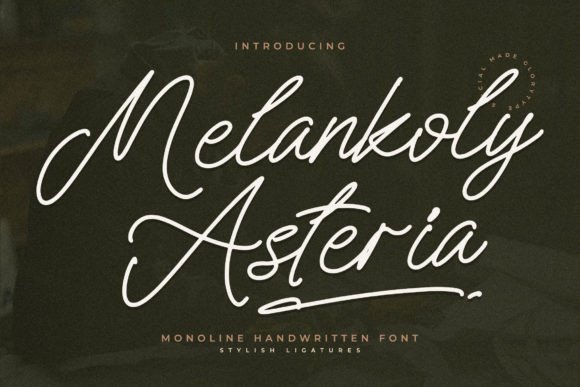
Unleash the sorcery of Halloween with Melankoly Asteria, a monoline handwritten font crafted to cast a spellbinding charm over your designs. Journey to a mystical realm where letters dance with elegance and sophistication, capturing the spirit of the season with every stroke.
Embrace the enchanting allure of Melankoly Asteria, a font that evokes the magic of the night. Picture your designs adorned with this captivating script, leaving an indelible mark on the hearts of your audience. Transport them to a world of enchantment where words become art and ideas transform into captivating tales.
Immerse yourself in the boundless creativity that Melankoly Asteria offers. Perfect for logos, branding projects, homeware designs, product packaging, and more, this font is a versatile tool that unlocks a world of design possibilities. Unleash your inner artist and let your imagination run wild as you craft designs that radiate with personality and flair.
With Melankoly Asteria, you'll discover a font that's not just visually stunning but also remarkably versatile. Its monoline structure lends itself effortlessly to a wide range of projects, from the delicate charm of wedding invitations to the bold impact of posters. Experience the freedom to explore your creativity without limits, knowing that Melankoly Asteria will elevate your designs to new heights.